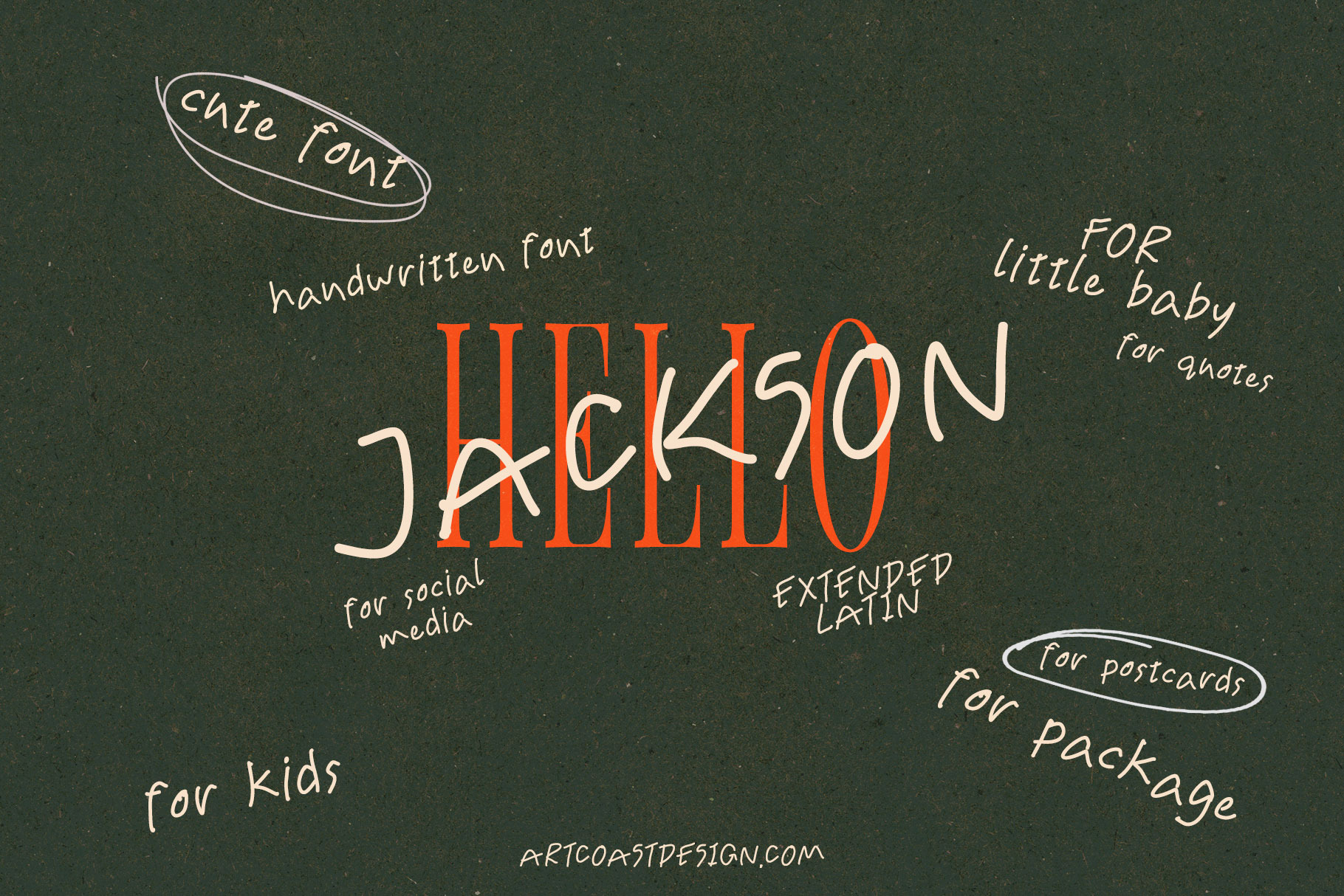
SA Jackson Handwritten Font
Introducing SA Jackson Handwritten Font – a carefree and charming typeface that exudes the authenticity of handwritten penmanship. With its delightful imperfections and whimsical character, SA Jackson is the perfect choice for a wide range of design applications, including quotes, captions, and social media content.
Handcrafted Authenticity: Each letter in SA Jackson has been meticulously crafted by hand, resulting in a font that feels genuine and organic, as if it were written by an artisan's pen.
Versatile Application: This font is an excellent choice for any creative project where you want to infuse a sense of casual authenticity. Whether you're designing a social media post, a quote graphic, or adding a personal touch to your captions, SA Jackson brings a unique and endearing quality to your text.
Quirky Charm: SA Jackson's deliberately irregular letterforms and varying baselines give your text a one-of-a-kind, offbeat charm that stands out and grabs attention.
Seamless Pairing: Whether you're blending it with other fonts or using it as the main feature, SA Jackson complements various design styles and works well across different media platforms, ensuring that your content retains its individuality.
SA Jackson Handwritten Font infuses your designs with the warmth and character of handwritten text. It's the perfect choice for designers seeking to add a touch of authenticity, whimsy, and elegance to their work. Elevate your projects with SA Jackson and watch your designs come to life with a touch of handwritten magic.